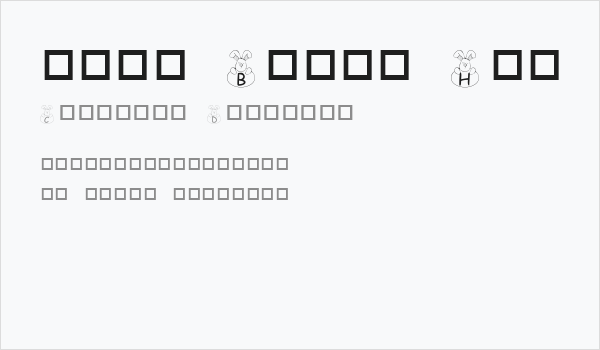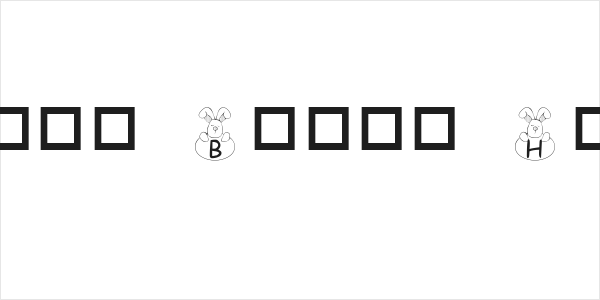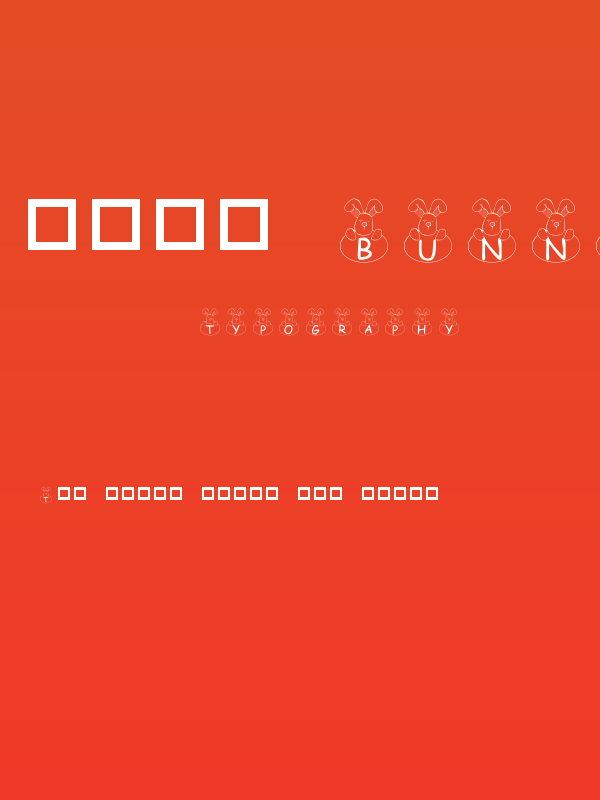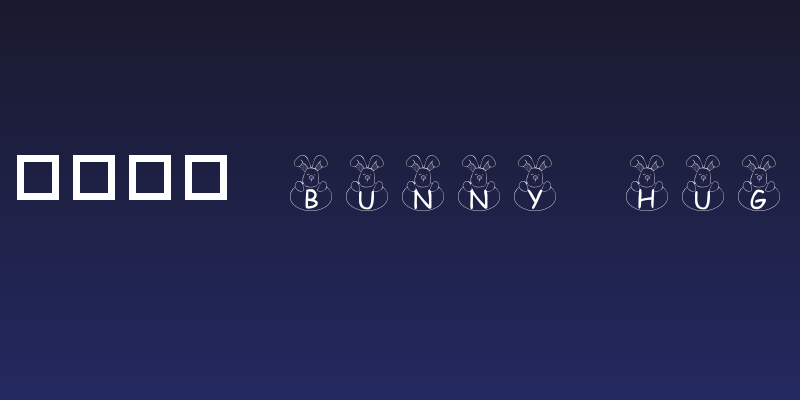
101! Bunny Hug Font
101! Bunny Hug Description
This playful and whimsical font features each letter encapsulated within a cartoonish bunny character, adding a unique and charming touch to the text. The letters are bold and clear, making them easily readable despite the decorative elements. The bunnies have expressive faces with large eyes and floppy ears, creating a friendly and inviting appearance. This font is perfect for children's materials, playful branding, or any project that requires a fun and lighthearted aesthetic. The consistent design across all characters ensures a cohesive look, while the bold strokes provide good visibility.
| Overall Style | Whimsical |
| Use Case | Headlines, Logos, Decorative text |
| Proposed Projects | Ideal for children's books, playful branding, greeting cards, and educational materials. |